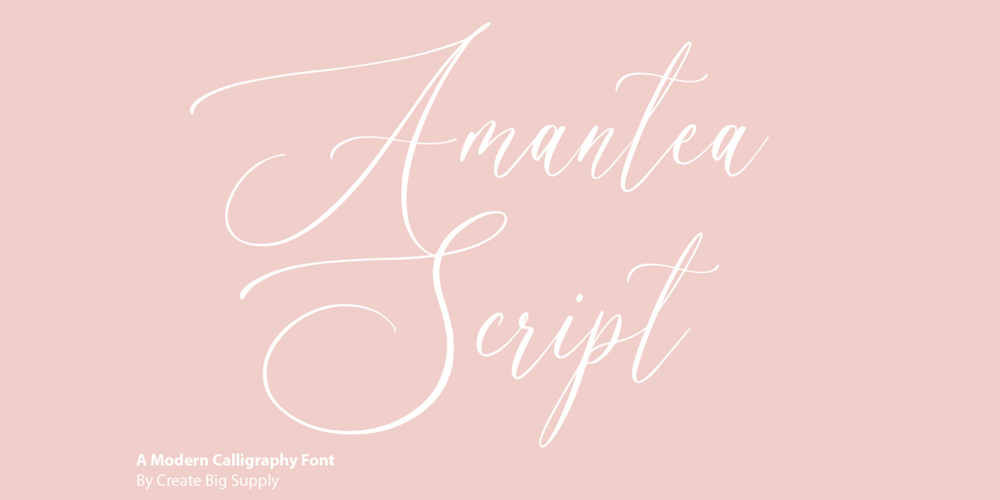
Amantea Script Font Family was designed by Irpan Maulana and published by Create Big Supply. Amantea Script contains 1 styles and family package options. Experience the enchanting allure of Amantea Script, a stunning and delicate font that embodies elegance and grace in every stroke. With its thin and flowing style, this script font captures the essence of sophistication, making it the perfect choice for a wide range of design projects.Amantea Script is a true gem for those seeking to create captivating wedding invitations that leave a lasting impression. Its intricate and graceful curves evoke a sense of romance and beauty, adding a touch of magic to any special occasion. The versatility of this font extends beyond weddings, as it effortlessly enhances stationary art, creating stunning pieces that exude refinement and style.In the realm of digital design, Amantea Script shines on social media platforms, effortlessly captivating audiences with its captivating charm. Whether it’s engaging posts, inspiring quotes, or eye-catching advertisements, this font adds an element of sophistication and allure that commands attention.With its extensive language support, Amantea Script opens up a world of possibilities. From English to Spanish, French to German, and beyond, you can seamlessly incorporate this font into your projects, ensuring that your message reaches a global audience.Amantea Script comes complete with a wide range of features, including alternate characters and ligatures, allowing you to create unique and personalized designs. The font is PUA encoded, providing easy access to a plethora of stunning glyphs that add depth and flair to your creations.